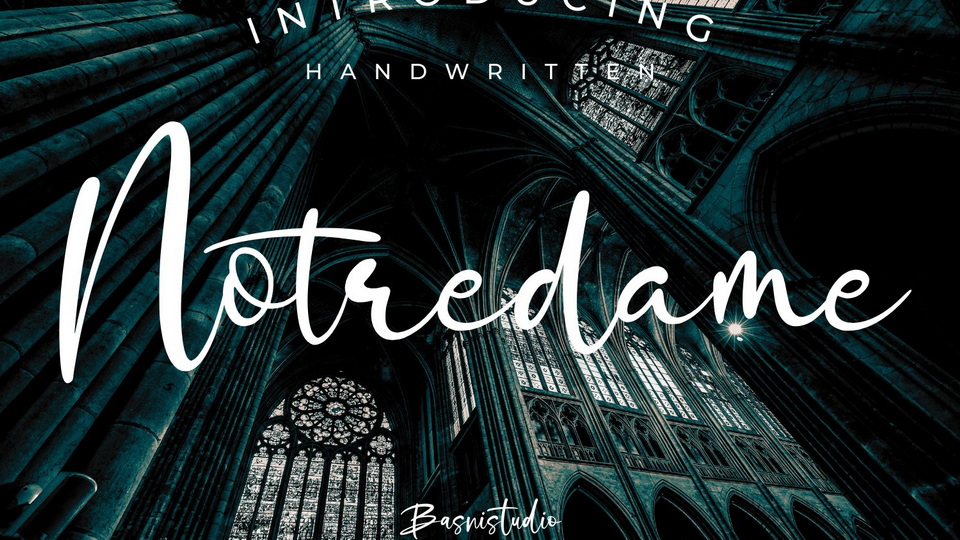
Download Notredame font, a simple and relaxed handwritten typeface, made with a natural flow and precision strokes, perfect for branding, websites, and editorial designs.